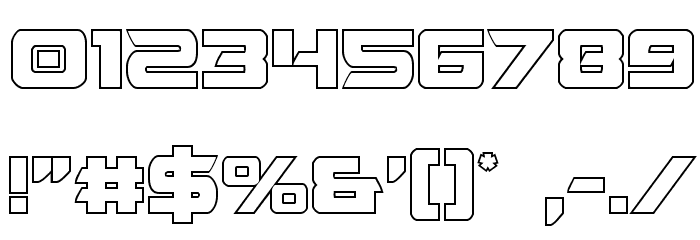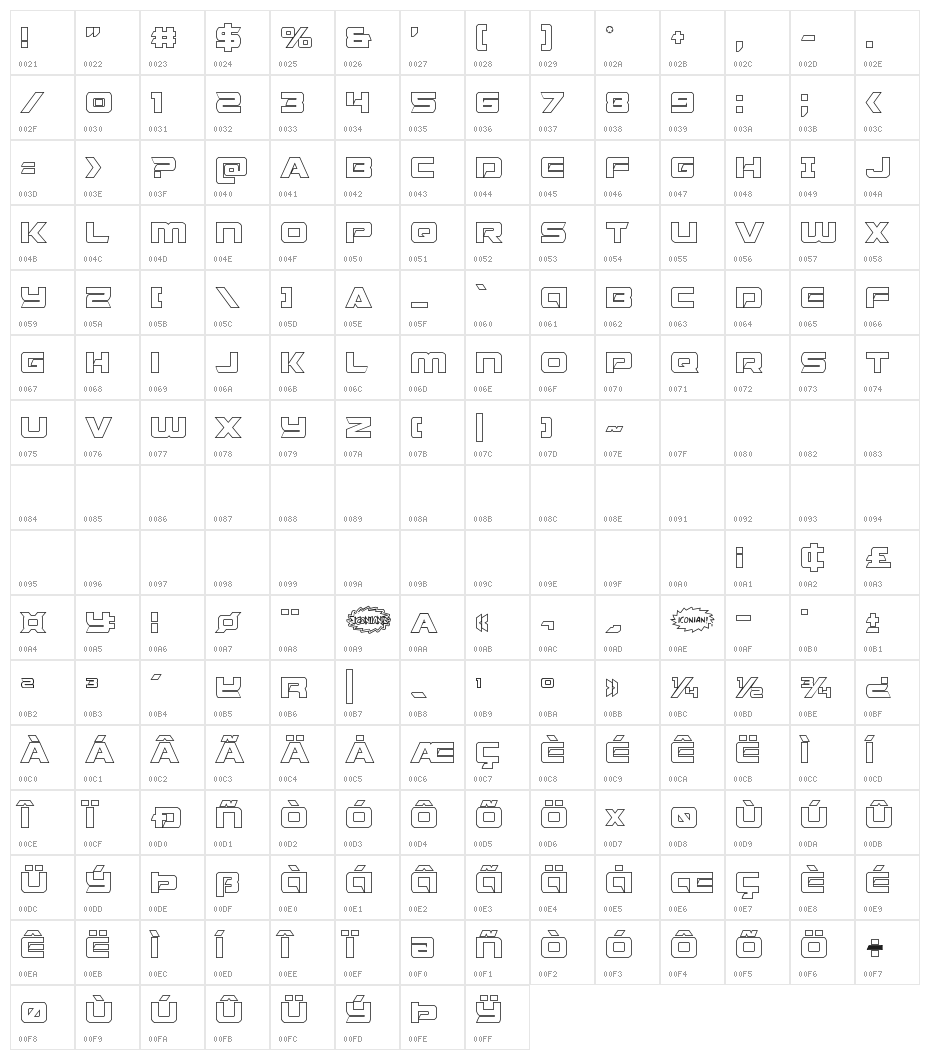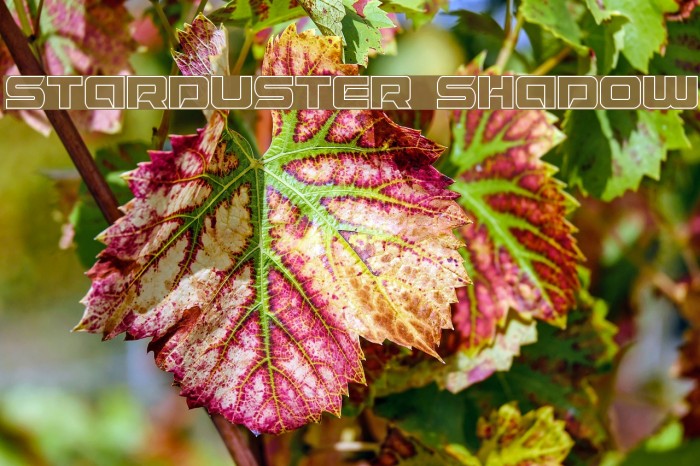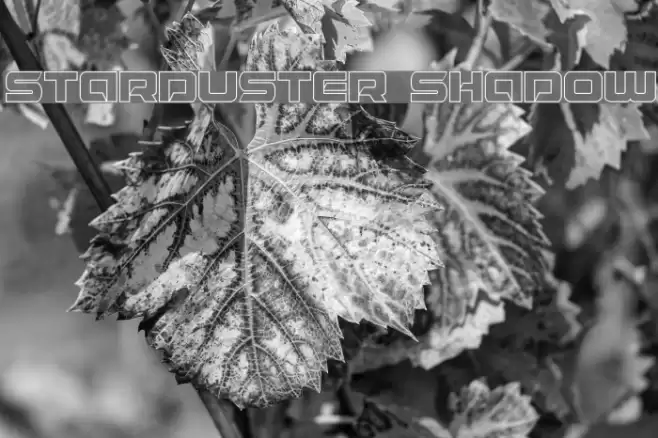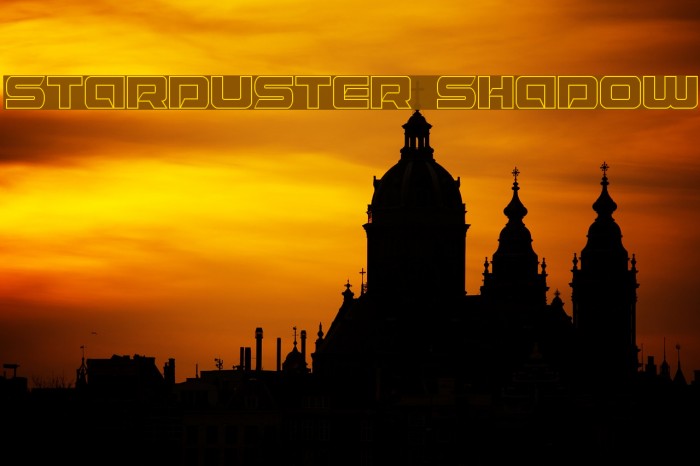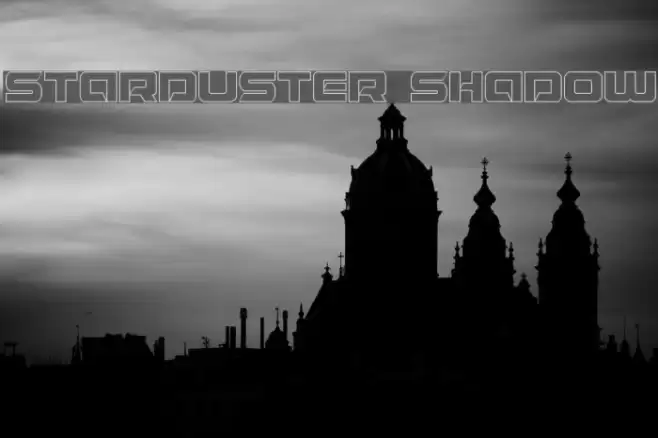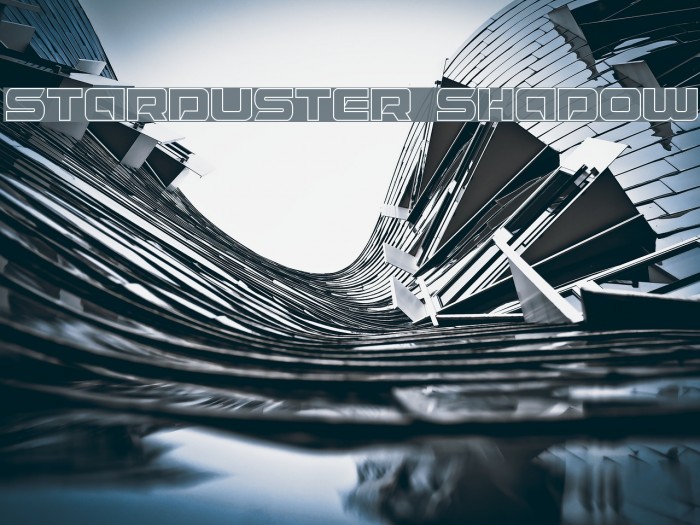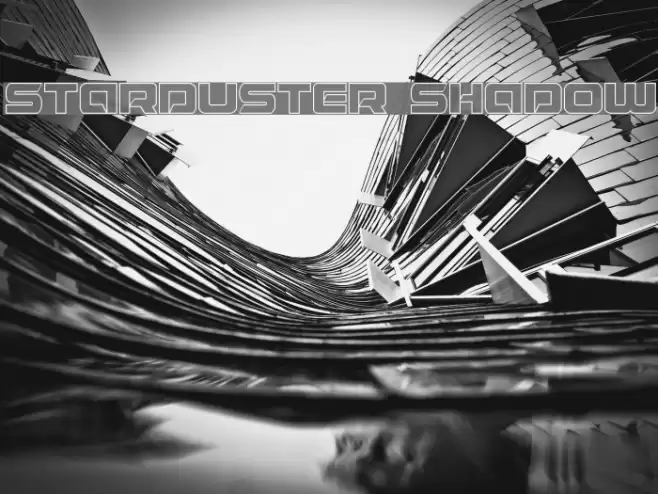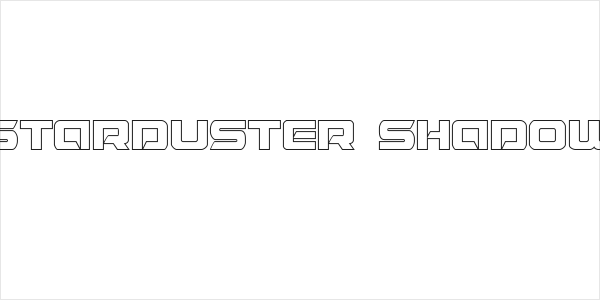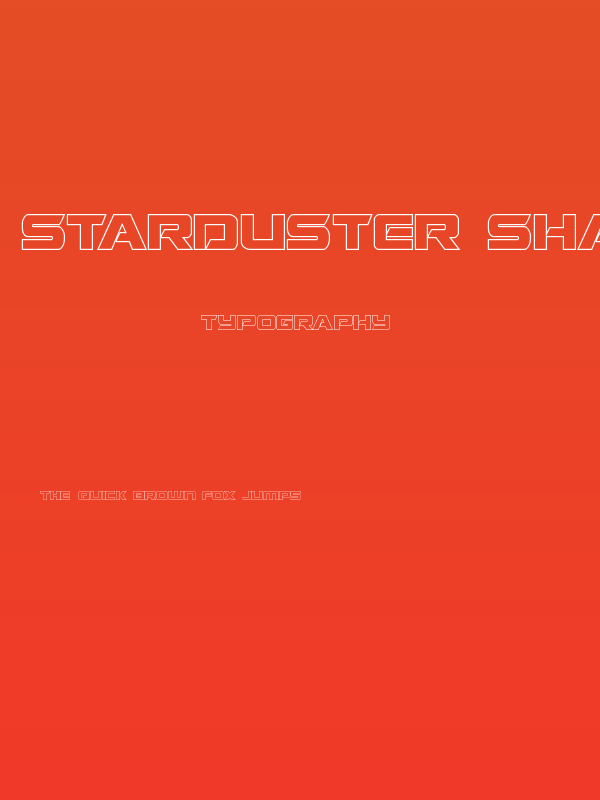
Starduster Shadow Font
Starduster Shadow Description
This font features a bold, geometric design with a futuristic and sci-fi aesthetic. The characters are outlined, giving them a hollow appearance that adds depth and dimension. The angular shapes and clean lines create a modern look, while the consistent stroke width maintains uniformity across all characters. This style is particularly eye-catching and works well in large formats where its unique characteristics can be fully appreciated. The font includes uppercase letters, numbers, and a selection of special characters, all maintaining the same stylistic approach.
Overall StyleFuturistic, Modern
Proposed ProjectsIdeal for sci-fi themed projects, video game titles, posters, and branding that requires a modern and edgy look.